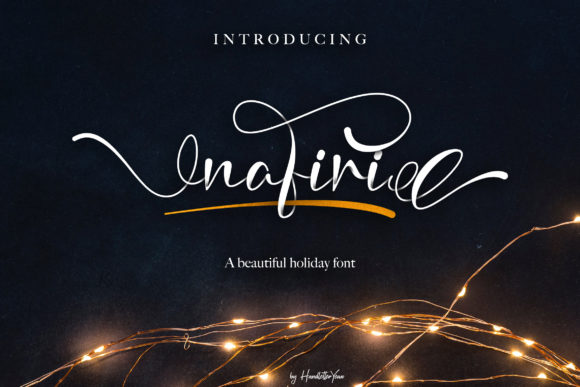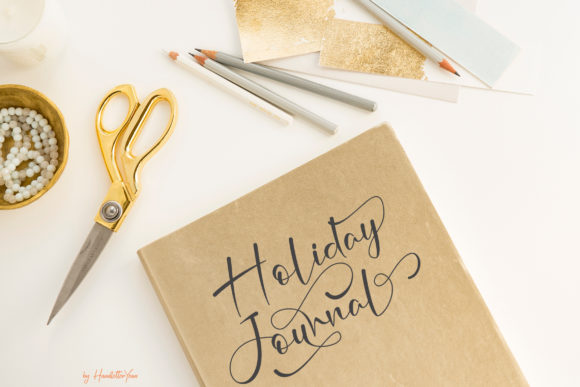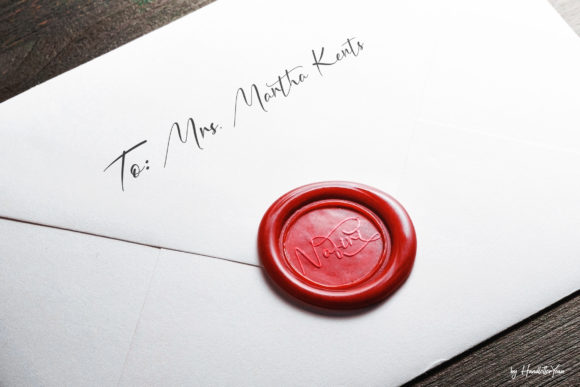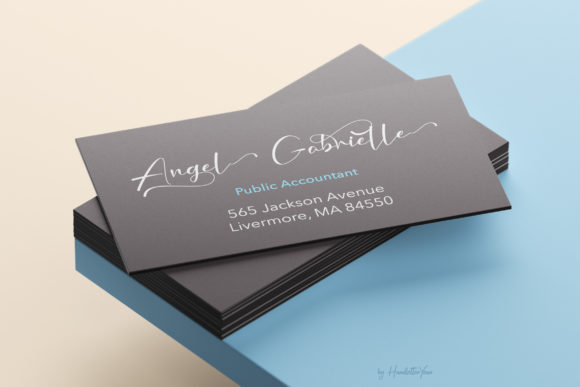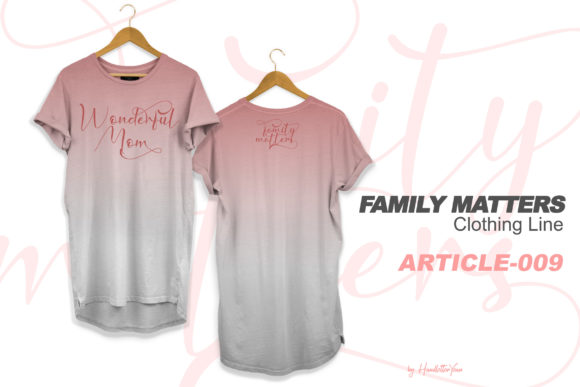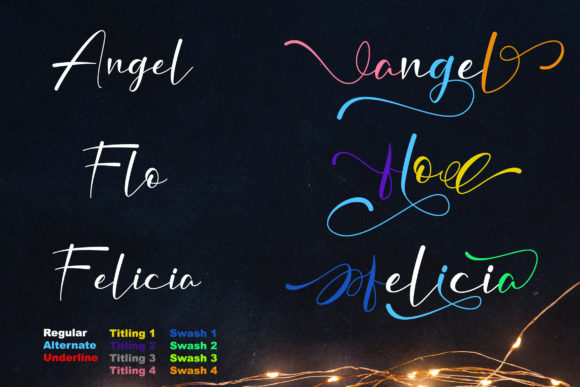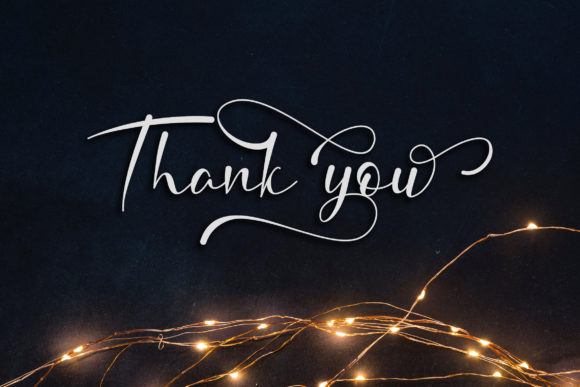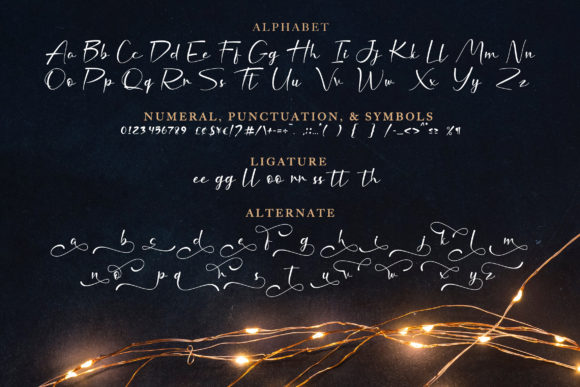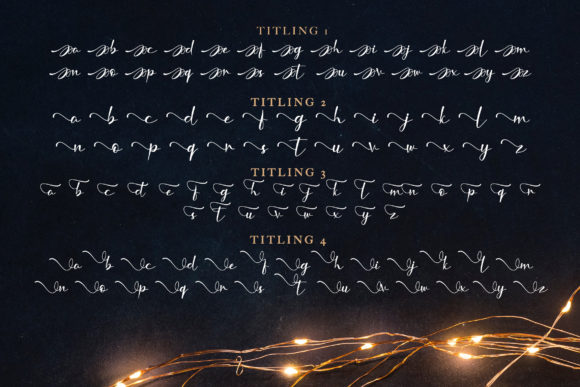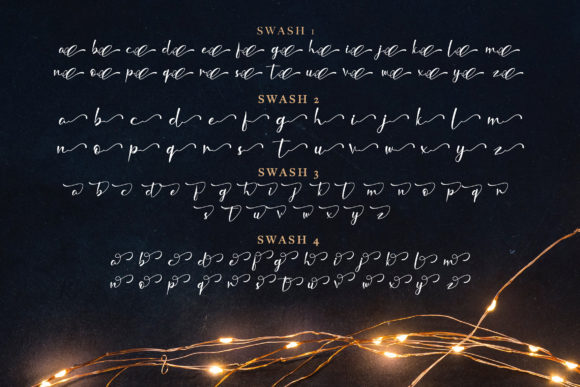
HomeScript FontsNafiri Font Script Fonts Nafiri Font FacebookXPinterestWhatsApp Nafiri Font Poster 2 Nafiri Font Poster 3 Nafiri Font Poster 4 Nafiri Font Poster 5 Nafiri Font Poster 6 Nafiri Font Poster 7 Nafiri Font Poster 8 Nafiri Font Poster 9 Nafiri Font Poster 10 Nafiri Font Poster 11 Nafiri Font Poster 12 Nafiri Font Poster 13 Nafiri Font Poster 14 Nafiri Font Poster 15 About Nafiri Font Nafiri is a beautiful and attractive font that captures the essence of Christmas and Winter. DOWNLOAD NOW People also explored Spalox Font Strongend Semi-Bold Font BlueJeans Font Killernuts Contra Slab Font Beautiful Sunday Font Hello Signature Font Retropus Script Font Kaneda Gothic 502 0 TagsNafiri Font Previous articleOrleons FontNext articleWhinter Font LEAVE A REPLY Cancel reply Comment: Please enter your comment! Name:* Please enter your name here Email:* You have entered an incorrect email address! Please enter your email address here Website: Save my name, email, and website in this browser for the next time I comment. Personal Use Free Brandon Bromley Personal Use Free Read more about this font Aline Personal Use Free Read more about this font Deco Neue Wilde Personal Use Free Read more about this font Rookie Mastering Personal Use Free Read more about this font BLOG To increase your work productivity, choose the most readable fonts. In today's fast-paced work environment, where digital communication and information consumption are integral to our daily routines, the choice of fonts can significantly impact... Top 7 Google Fonts Alternatives for Faster and Privacy-Friendly Web Design (2025) 5 Fonts That Will Dominate Design Trends in 2026 Where to Buy American Fonts Online in 2024